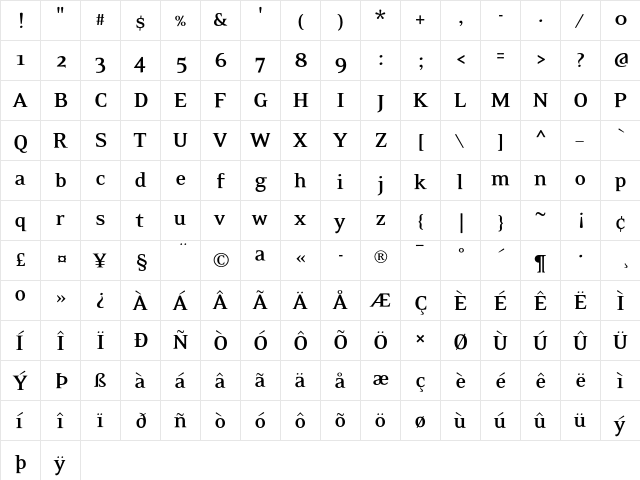
EideticSerif-Bold Regular Font Preview
EideticSerif-Bold Regular
Design Context for EideticSerif-Bold Typeface
EideticSerif-Bold brings classic typographic sensibility to the table — its serifs and measured letterforms reflect centuries of print heritage. The heavy weight commands attention and anchors typographic hierarchies.
Pro Tip: Set EideticSerif-Bold with slightly loose tracking in headlines to let each letterform's detail read clearly at display sizes.